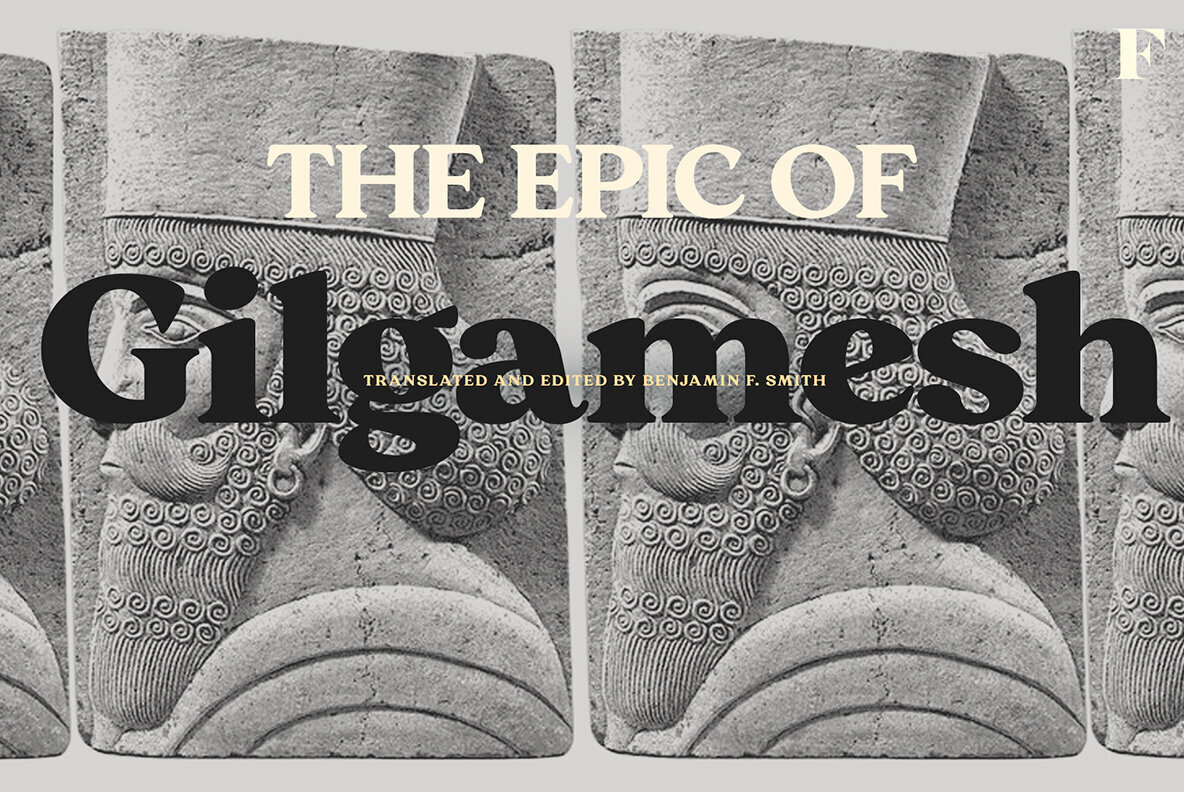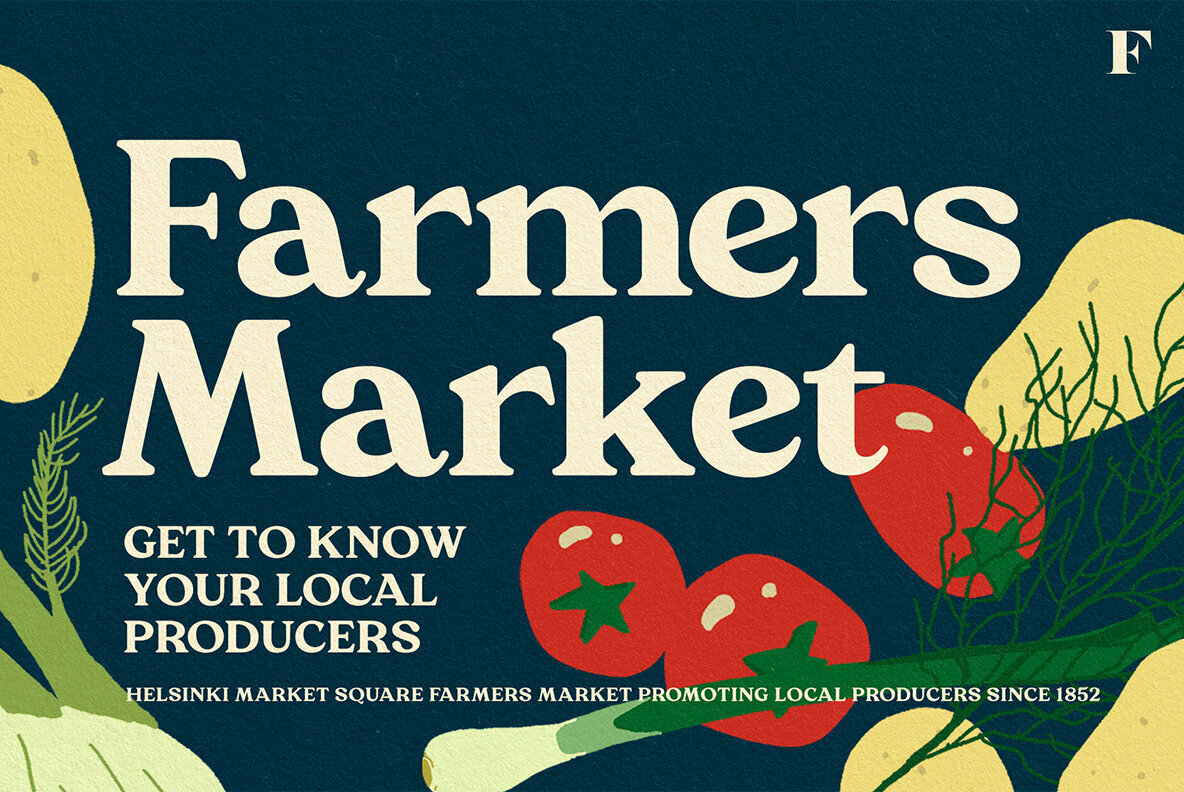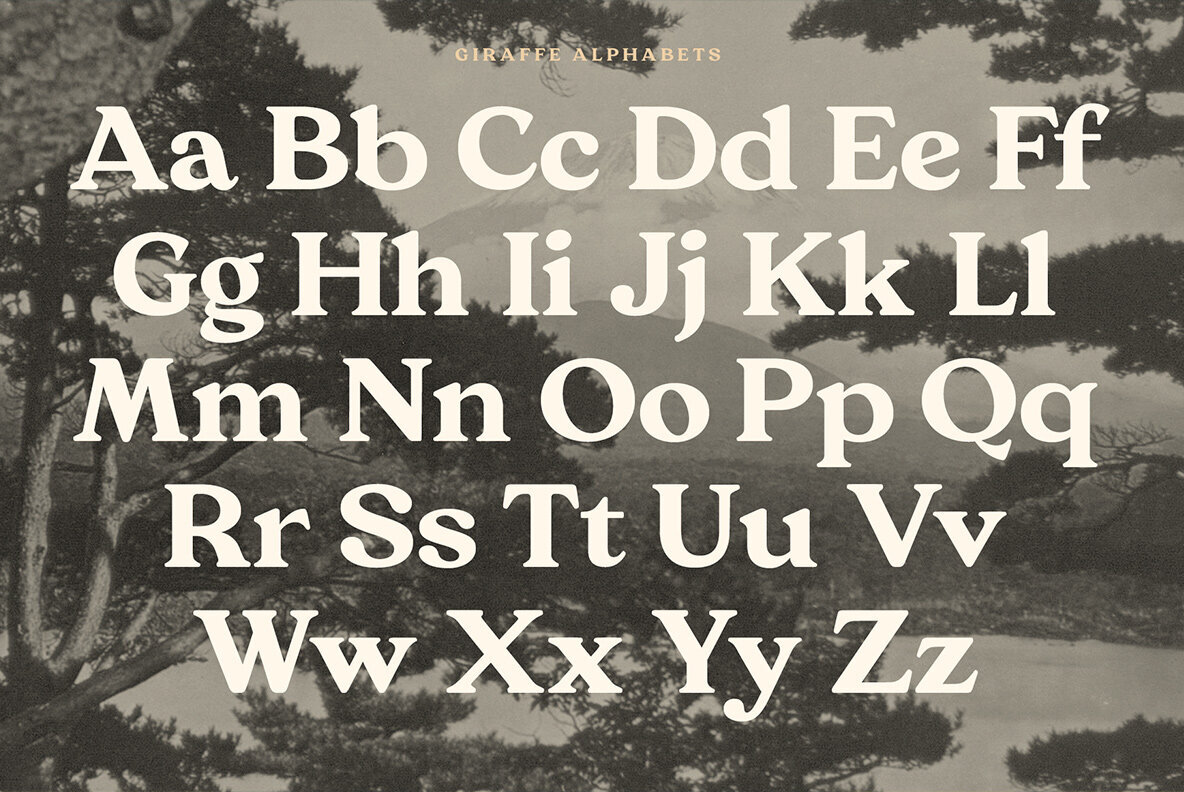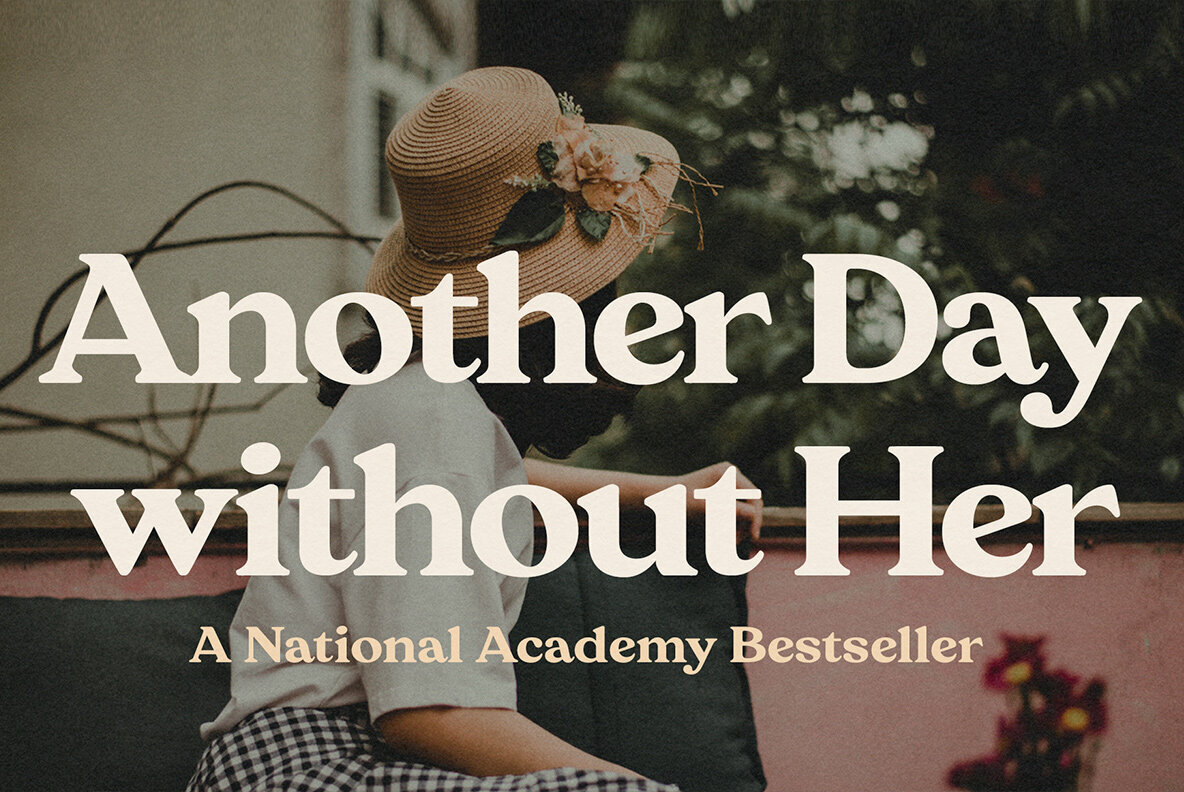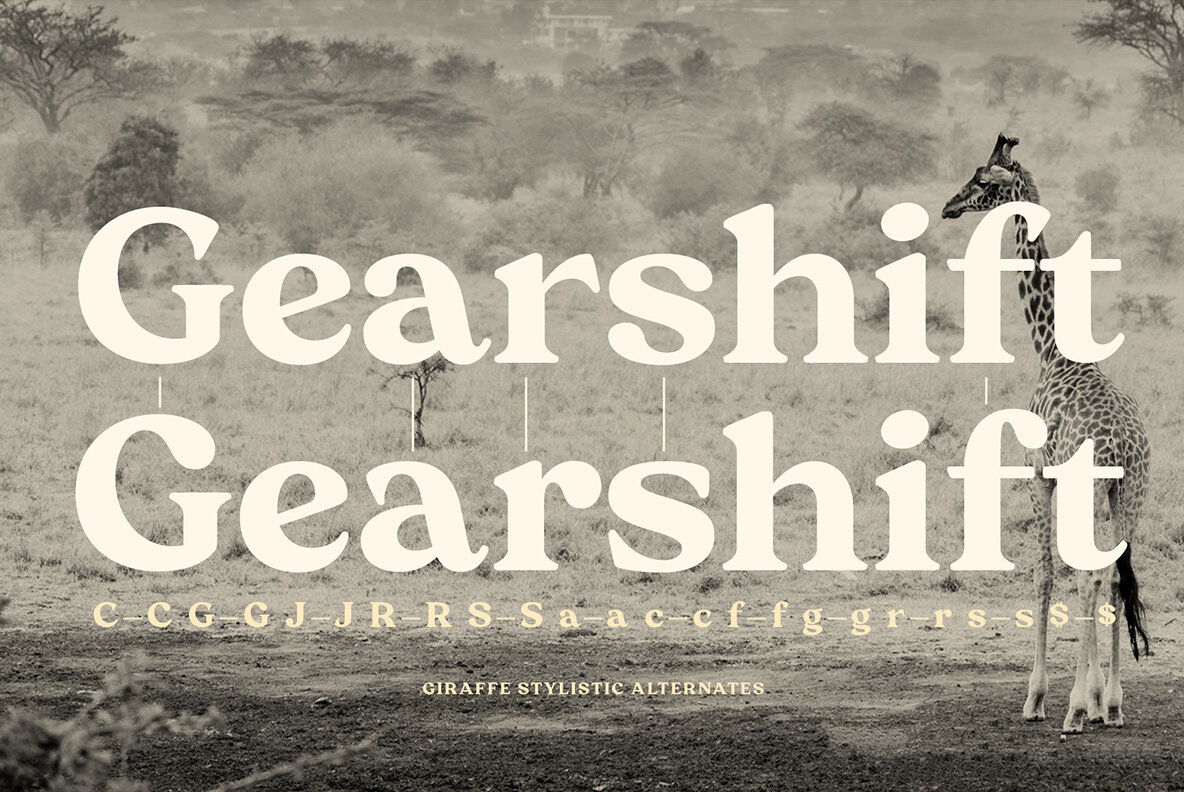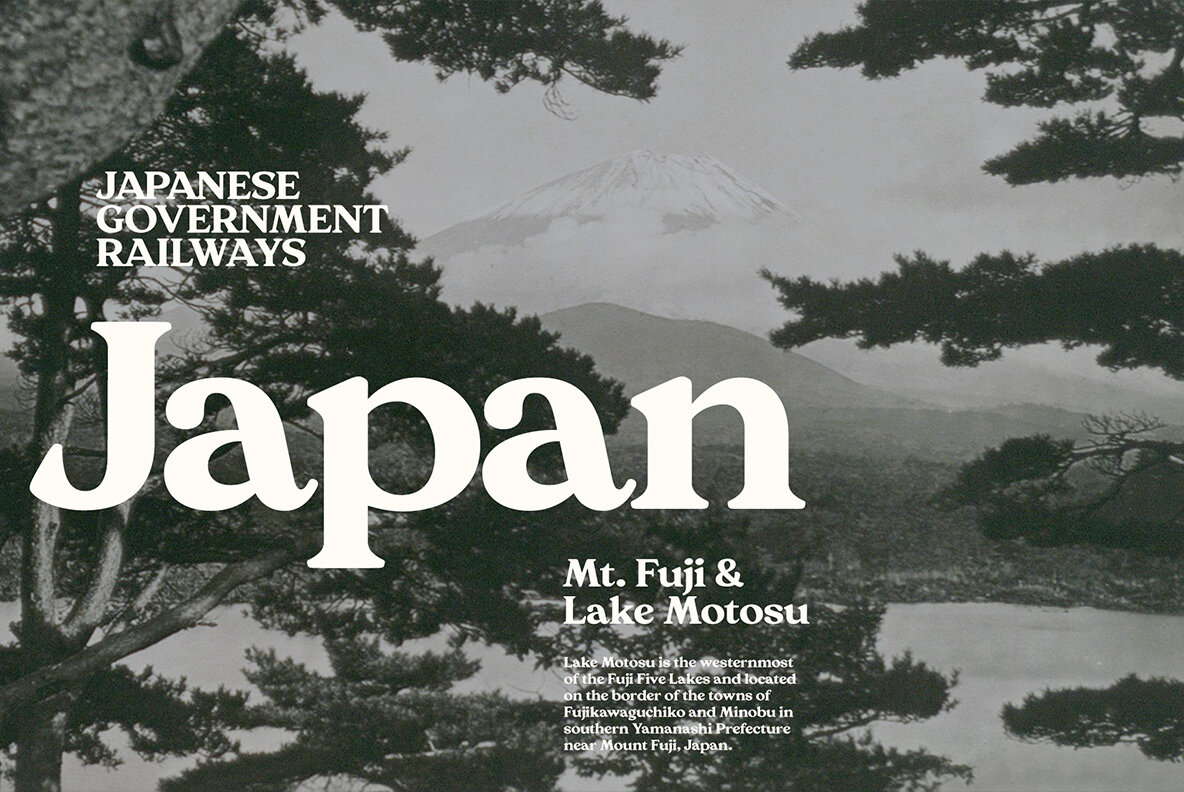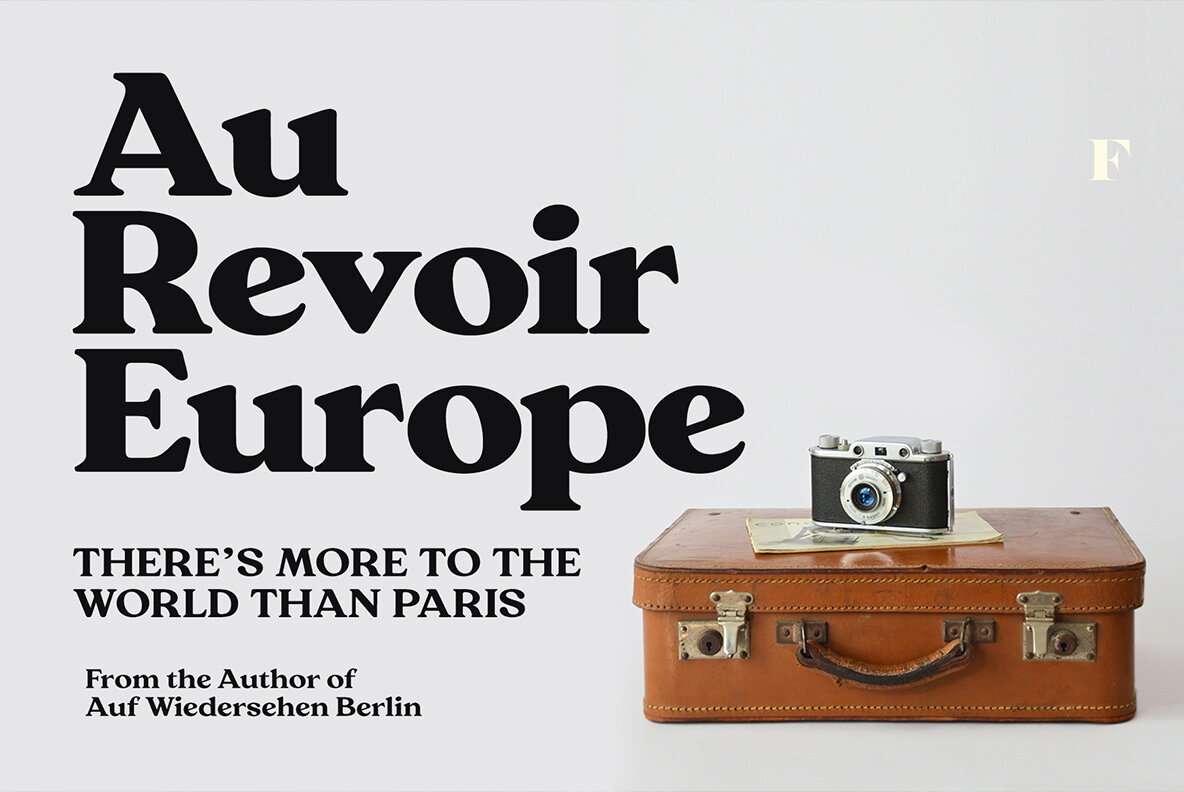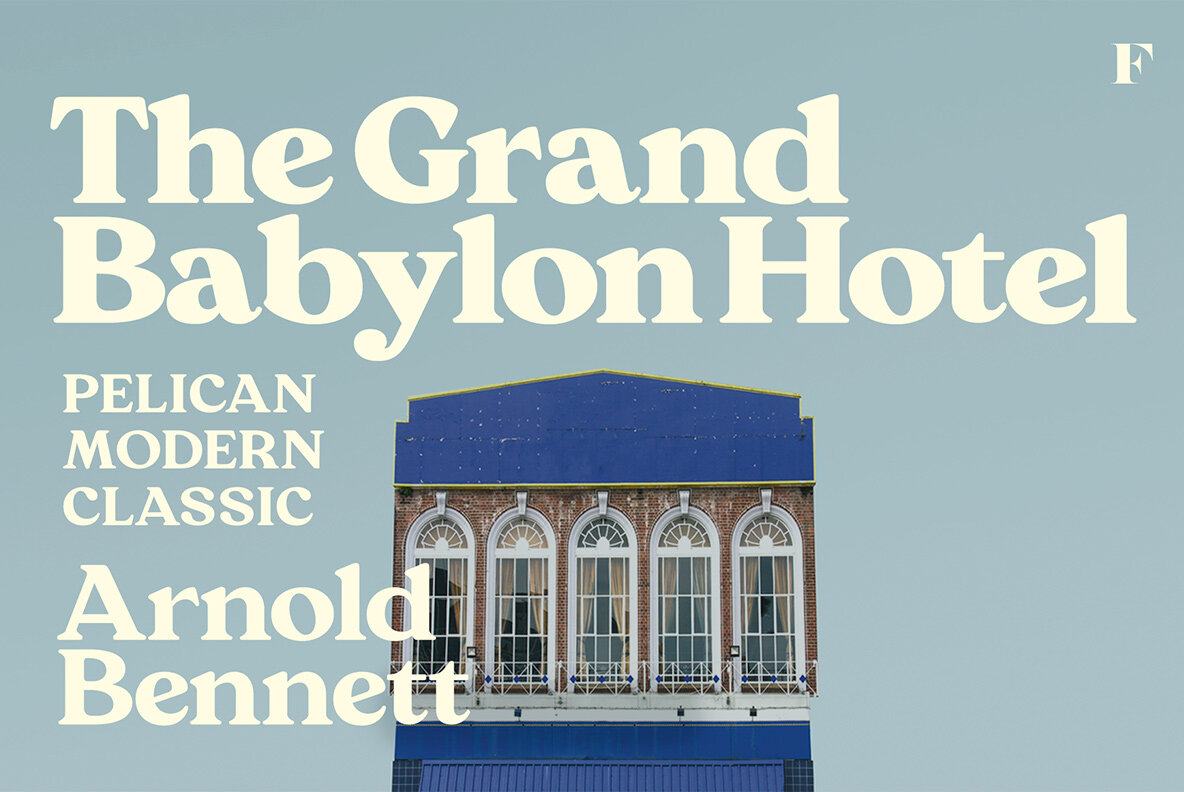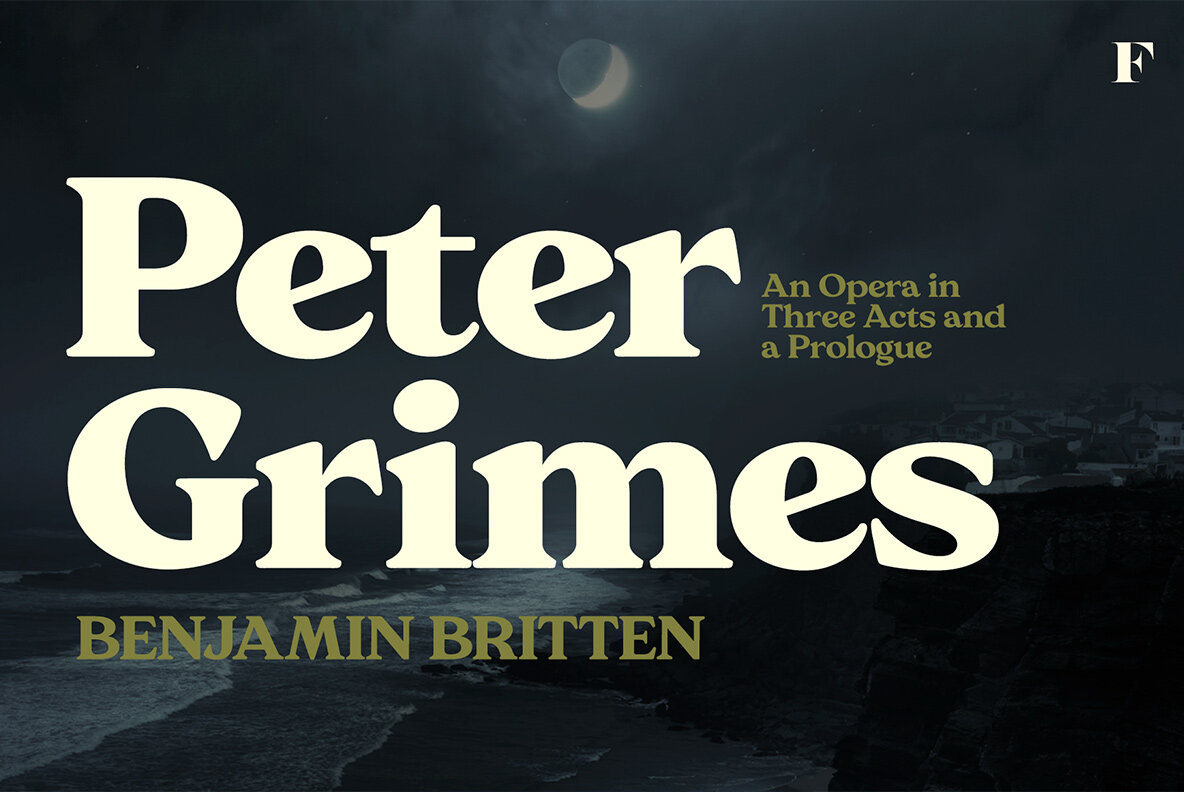
Giraffe Font
Giraffe is a typeface that can be used to give the user an confident look. It has two styles, one being rounded while another features sharp edges.
Giraffe comes with a set of Stylistic Alternates for letters C,G,J,R,S, a, c, f, g, r, s and $.